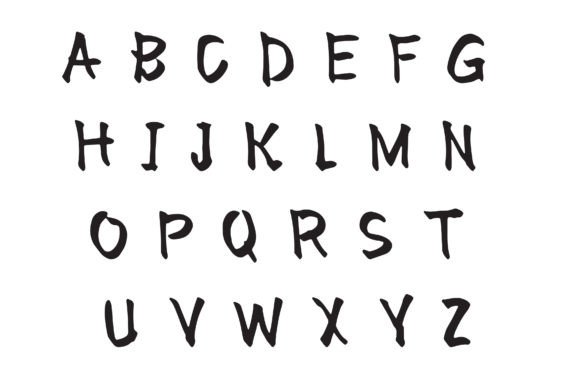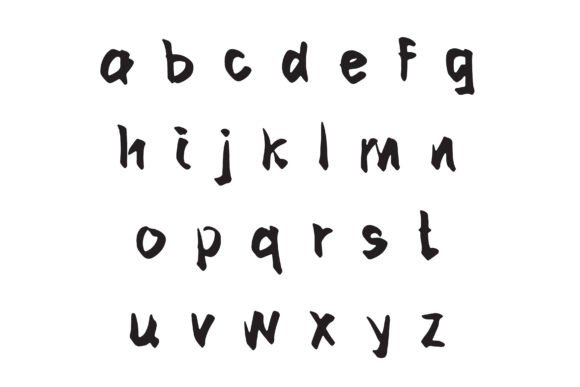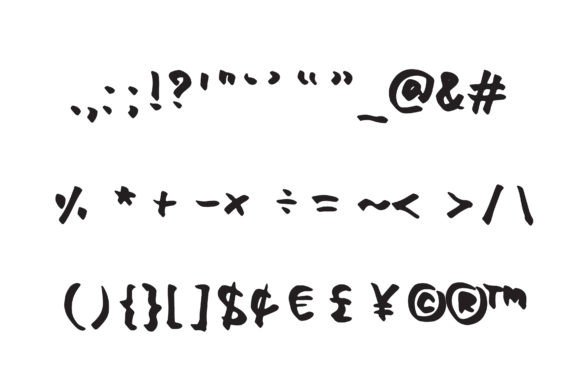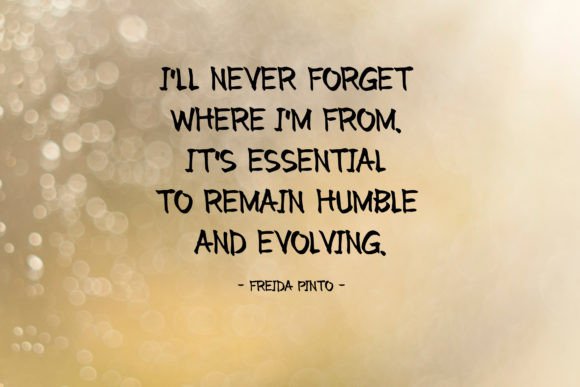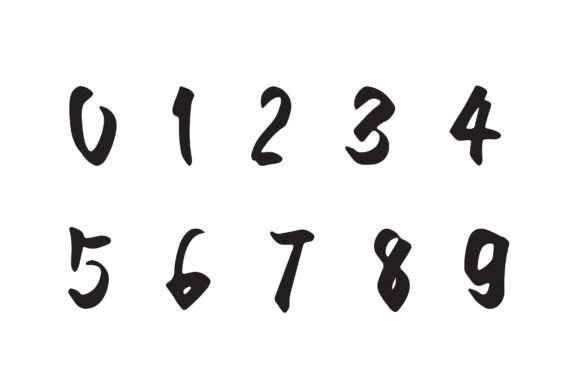
Tamarind Sweet Font
Tamarind Sweet Font : A Simple and Charming Handwritten Font
Introducing Tamarind Sweet, a delightful handwritten font that brings simplicity and charm to your creative projects. This versatile typeface is perfect for a wide range of applications, from greeting cards to social media graphics.
Key Features of Tamarind Sweet Font
• Simple Handwritten Style: Adds a personal and approachable touch to your designs
• Charming Character: Infuses your projects with warmth and authenticity
• Versatile Application: Suitable for greeting cards, posters, product designs, and more
Perfect for Multiple Design Projects
Tamarind Sweet’s adaptability makes it an excellent choice for:
Enhancing Your Creative Vision
With Tamarind Sweet, you can infuse your designs with a sense of warmth and friendliness. Its simple yet charming style adds authenticity to your projects, making them more relatable and engaging to your audience.
Digital and Print Versatility
Whether you’re creating digital designs or print materials, Tamarind Sweet maintains its charm and readability. Use it for:
• Heartfelt online greetings
• Engaging blog post titles
• Unique email marketing campaigns
• Memorable product packaging
Customization Options
Tamarind Sweet offers a range of customization options, allowing you to tailor your text to match your creative vision perfectly. This flexibility empowers you to create designs that reflect your unique style and message.
Tamarind Sweet is more than just a font; it’s a creative tool that brings simplicity and charm to your design projects. Its handwritten style inspires designs that resonate with authenticity and warmth. By incorporating Tamarind Sweet into your designs, you can create visually appealing and relatable content that engages your audience. Whether you’re a professional designer or someone looking to add a personal touch to projects, Tamarind Sweet offers the perfect blend of simplicity and charm. Consider pairing Tamarind Sweet with clean sans-serif fonts for contrast or complementing it with other script fonts for a dynamic typographic palette. This versatility allows you to create designs that are both charming and harmonious across various mediums and industries. Embrace the warmth of Tamarind Sweet today and watch as it transforms your creative ideas into engaging and authentic designs that connect with your audience on a personal level!